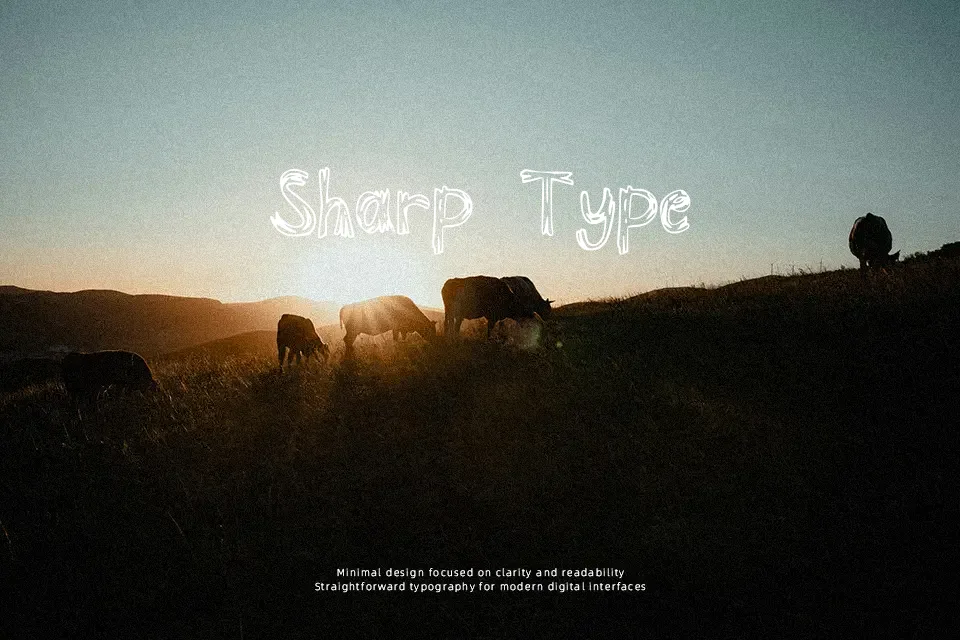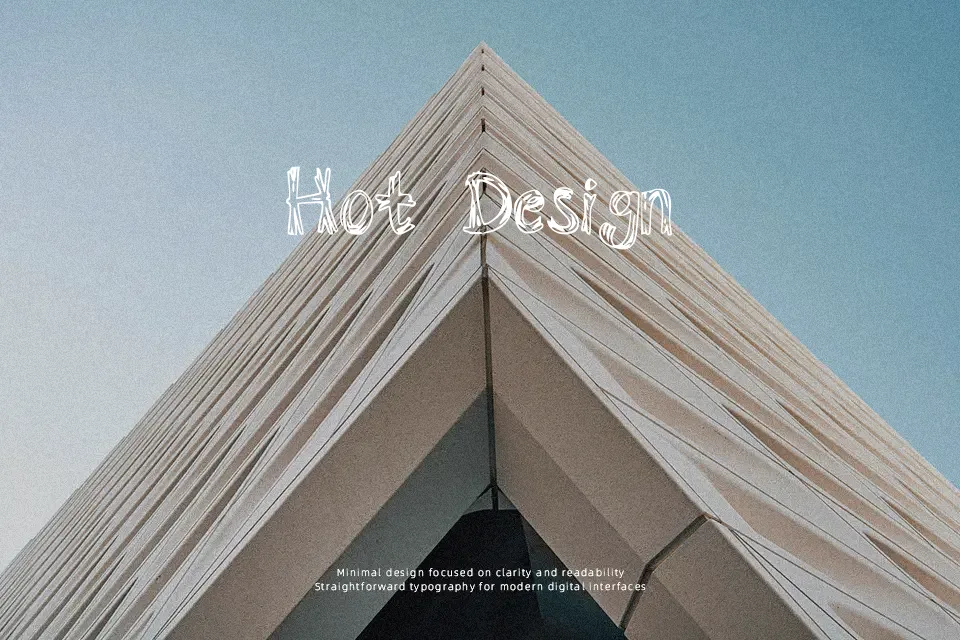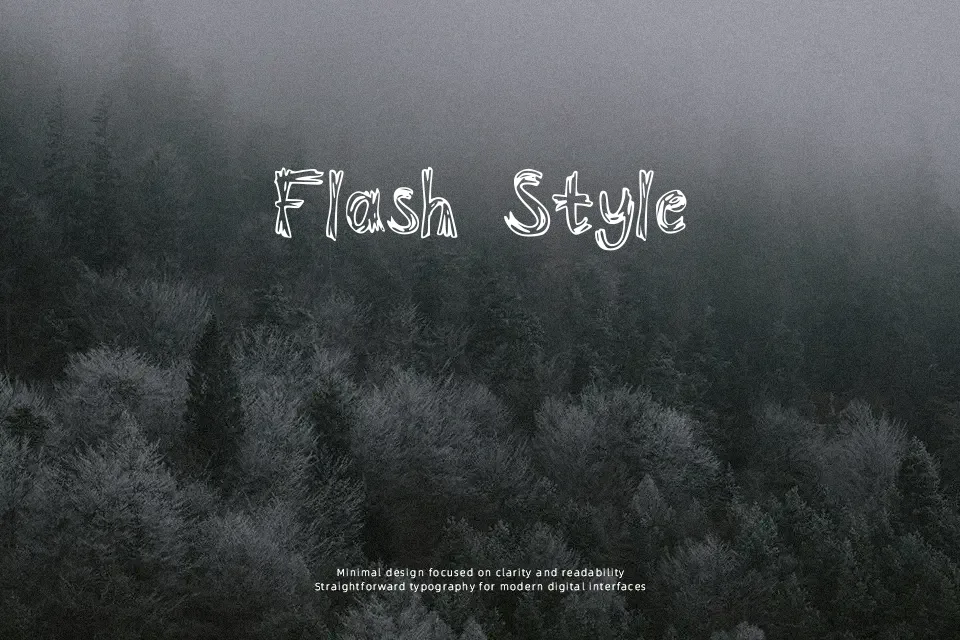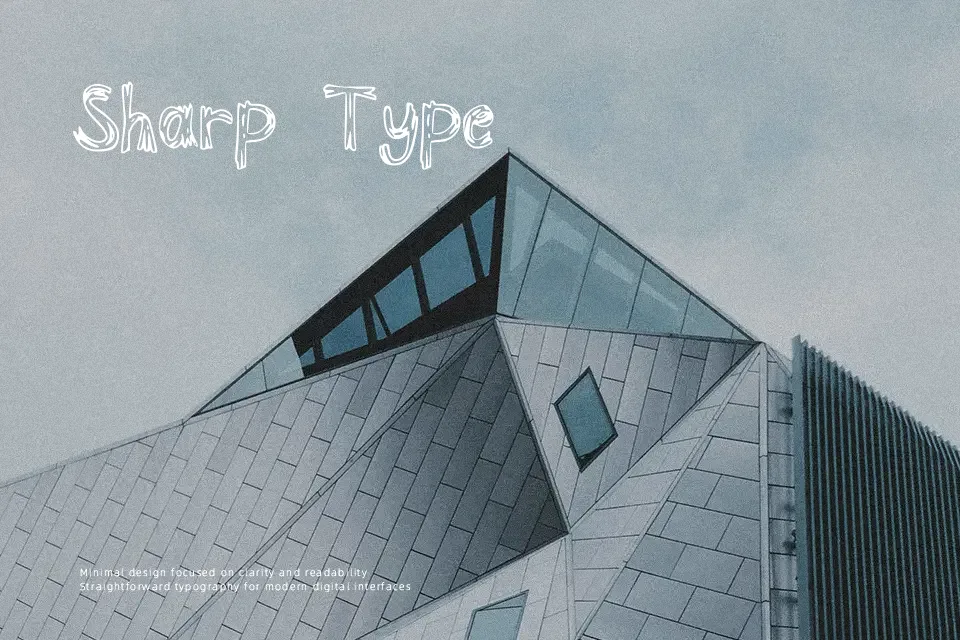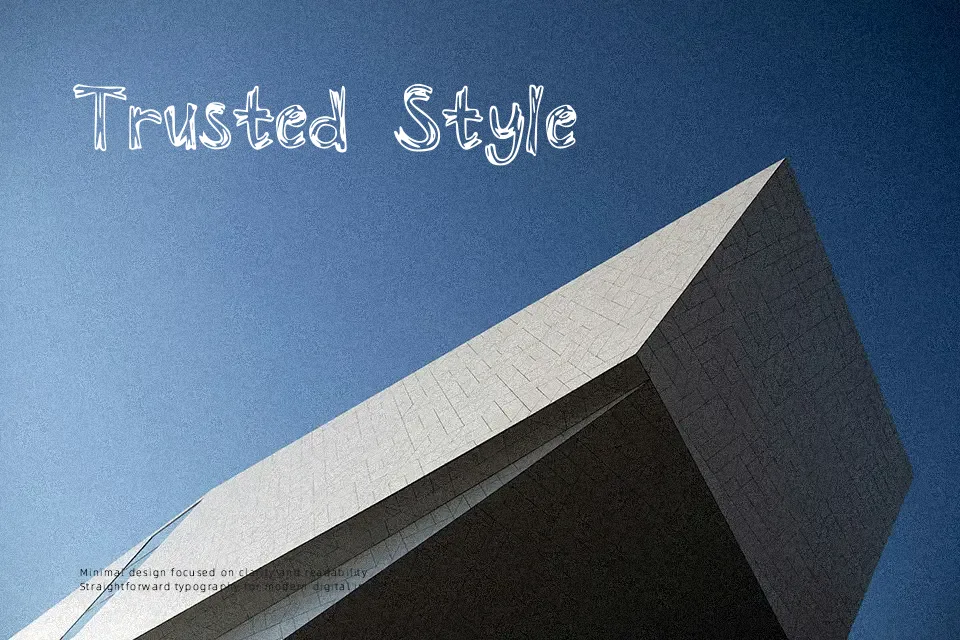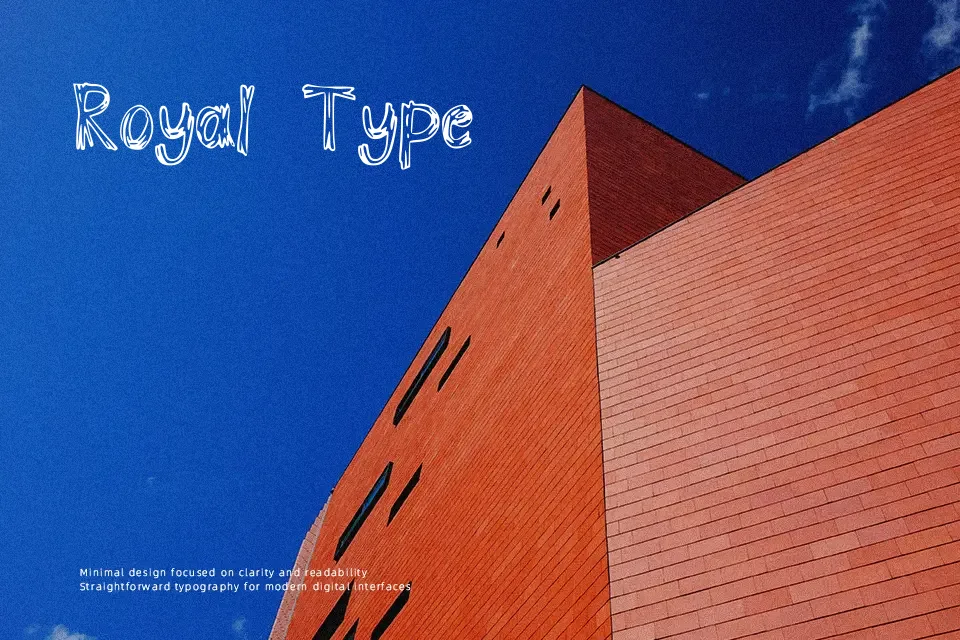
Britin Font
Designed by Brittany Shemmeld
Britin is a quirky display face with irregular strokes, loose structure, and a slightly rough outline that reads like a doodled title rather than a polished headline. The letters feel friendly and informal, with varying widths and relaxed spacing that push it toward an illustrated, “hand-drawn on paper” look. This works nicely for craft labels, kids’ event posters, hobby blogs, or YouTube thumbnails where personality matters more than precision. I would keep it for short, bold words or phrases; in longer text it starts to feel busy and harder to scan. If you like decorative cartoon-style or sketch fonts, Britin sits in that same playful territory.
short playful headlines and logos on craft or DIY projects
kids’ event posters, birthday signage, and party printables
creative social media graphics or thumbnails needing a drawn look
long paragraphs or body text where clarity is critical
formal branding, corporate documents, or serious editorial layouts
tiny captions or UI elements that require clean legibility
Perfect for headline, kids, and logo, with a artistic and comic style.